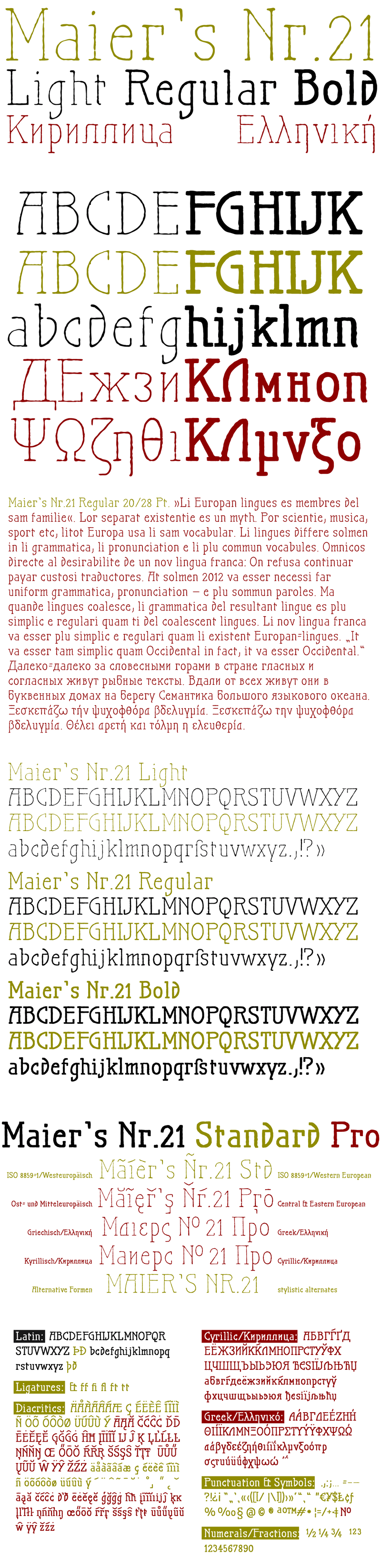
Font name: | Maiers Nr.21 |
Author: | ingoFonts |
Note by ingoFonts | |
Very geometrical, rigid forms borrowed from the typical characteristics of Jugendstil/Art Nouveau This script is found in a magazine from the Otto Maier publishing house, Ravensburg, which was issued sometime in the years shortly before WWI. The magazine is entitled �Schriften-Sammlung f�r Techniker: Verkleinerte Schriften der wichtigsten Alphabete� (Collection of scripts for technical specialists: reduced scripts of the most significant alphabets) and published by Karl O. Maier. The original copy, produced by means of a galvanized plate, is just 7 centimeters wide. It served as the model for technical professions in which, at that time, the captions of drawings were still done by hand. The characters have been scanned, digitized and greatly magnified. Special attention was given to ensure the �uneven� edges, typical of handwritten script, remained effectively noticeable even in the digitized form. As a result, this �technical� font retains a handmade touch. Especially worthy of note are the Jugendstil forms characteristic at the turn of the19th century. In comparison, many alleged �ultramodern� font types of today suddenly look quite old-fashioned. The font downloadable here is a reduced version (without punctuation, ligatures, numbers etc.). A commercial version of this font (with all features) is available at www.ingofonts.com. |